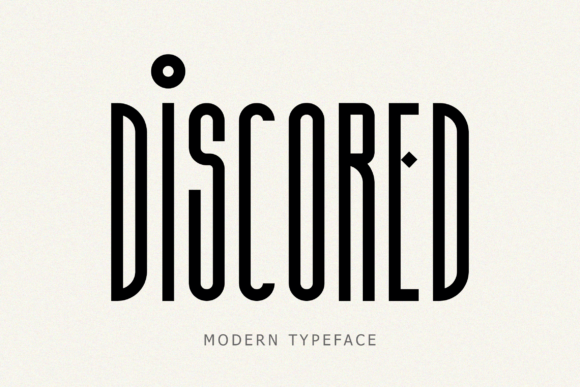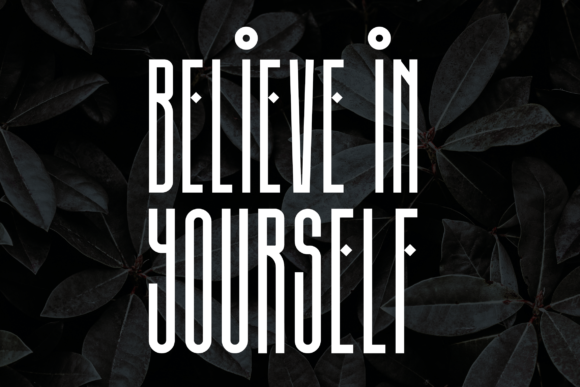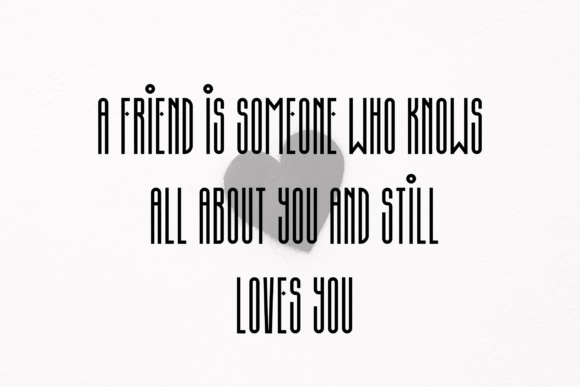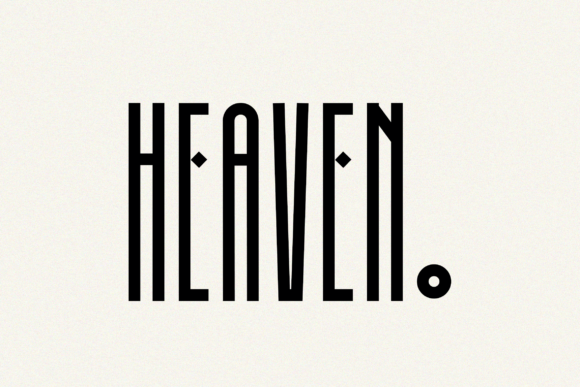
About Discored Font
Discored is a fancy, contemporary sans serif font. In addition to its well-balanced weight distribution, it delivers tall lettering which is further emphasized by the carefully adjusted alternates and ligatures!